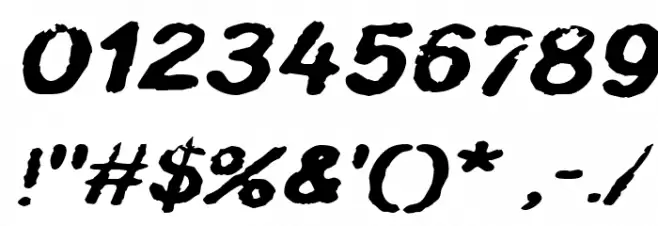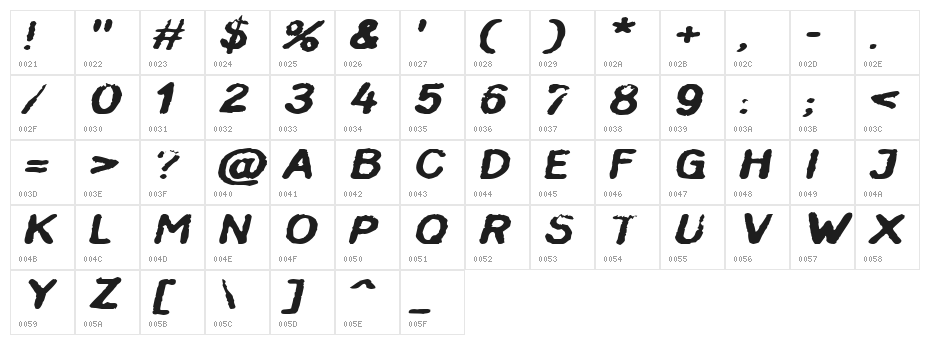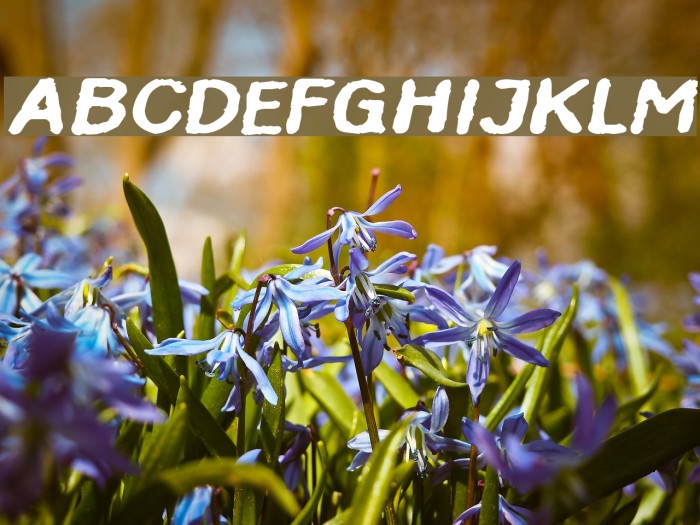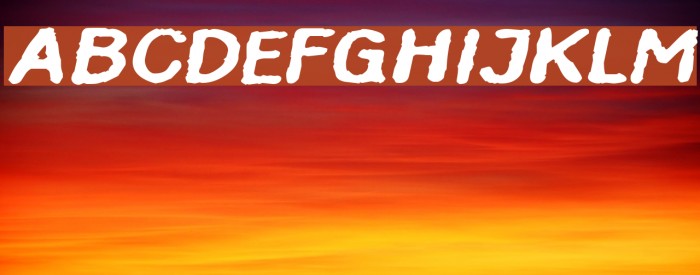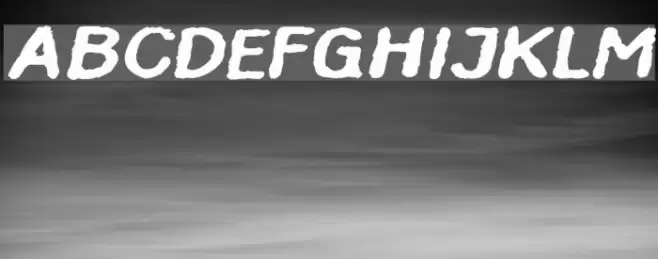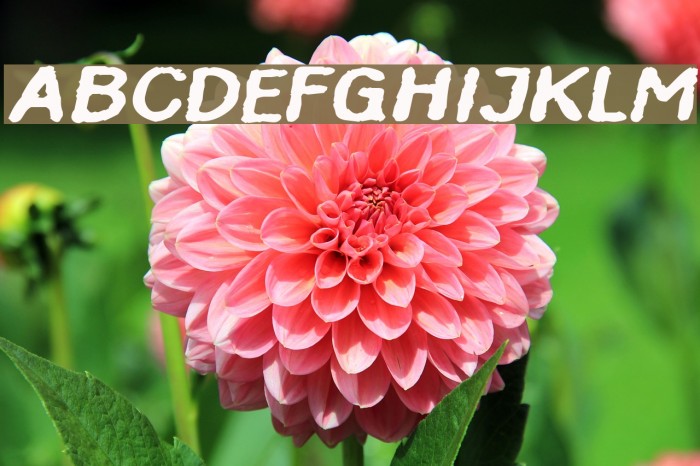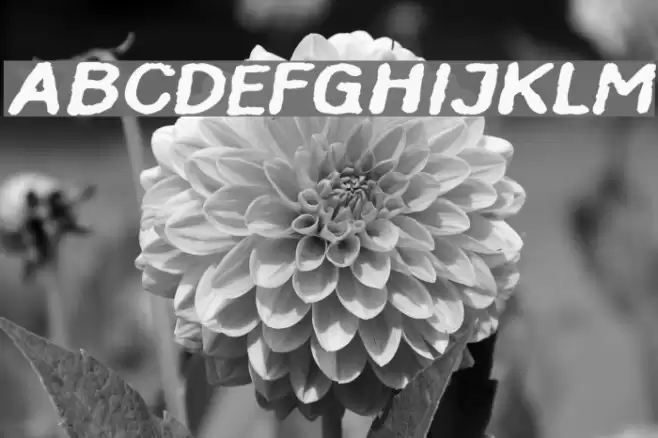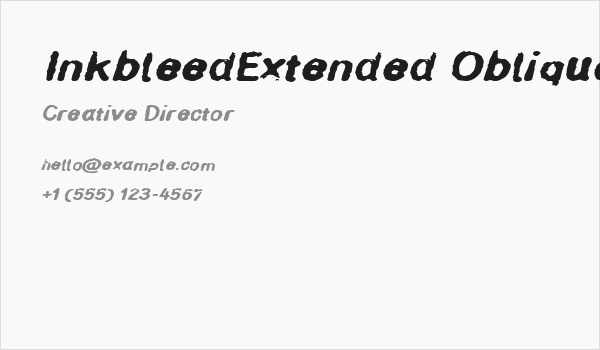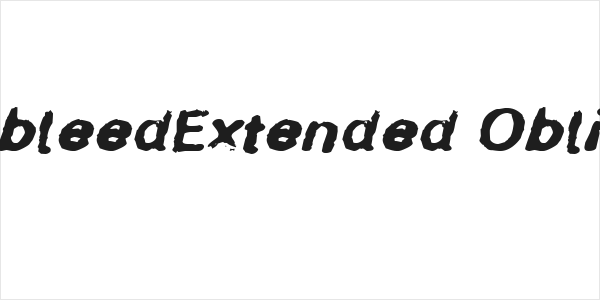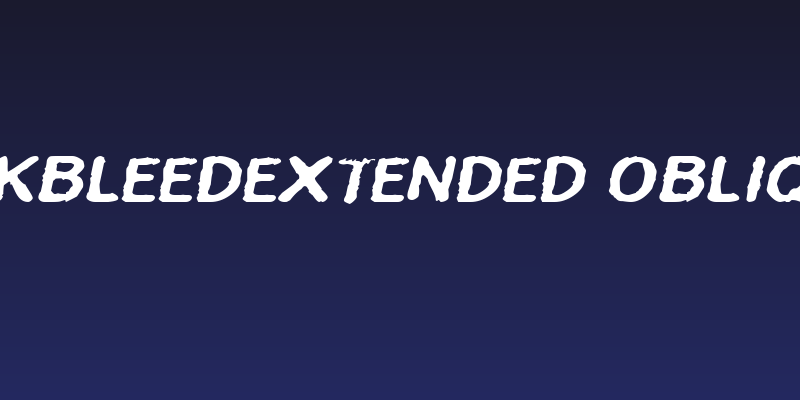
InkbleedExtended Oblique Font
InkbleedExtended Oblique Description
This font features a unique, distressed appearance, reminiscent of ink bleeding on paper. The characters have an oblique slant, adding a dynamic and energetic feel. The edges are irregular and rough, giving it a handcrafted, organic look. This style is bold and impactful, making it suitable for attention-grabbing designs. The uppercase and lowercase letters maintain a consistent style, with numbers and special characters following the same aesthetic. The font's overall appearance is both artistic and edgy, perfect for projects that require a raw, authentic touch.